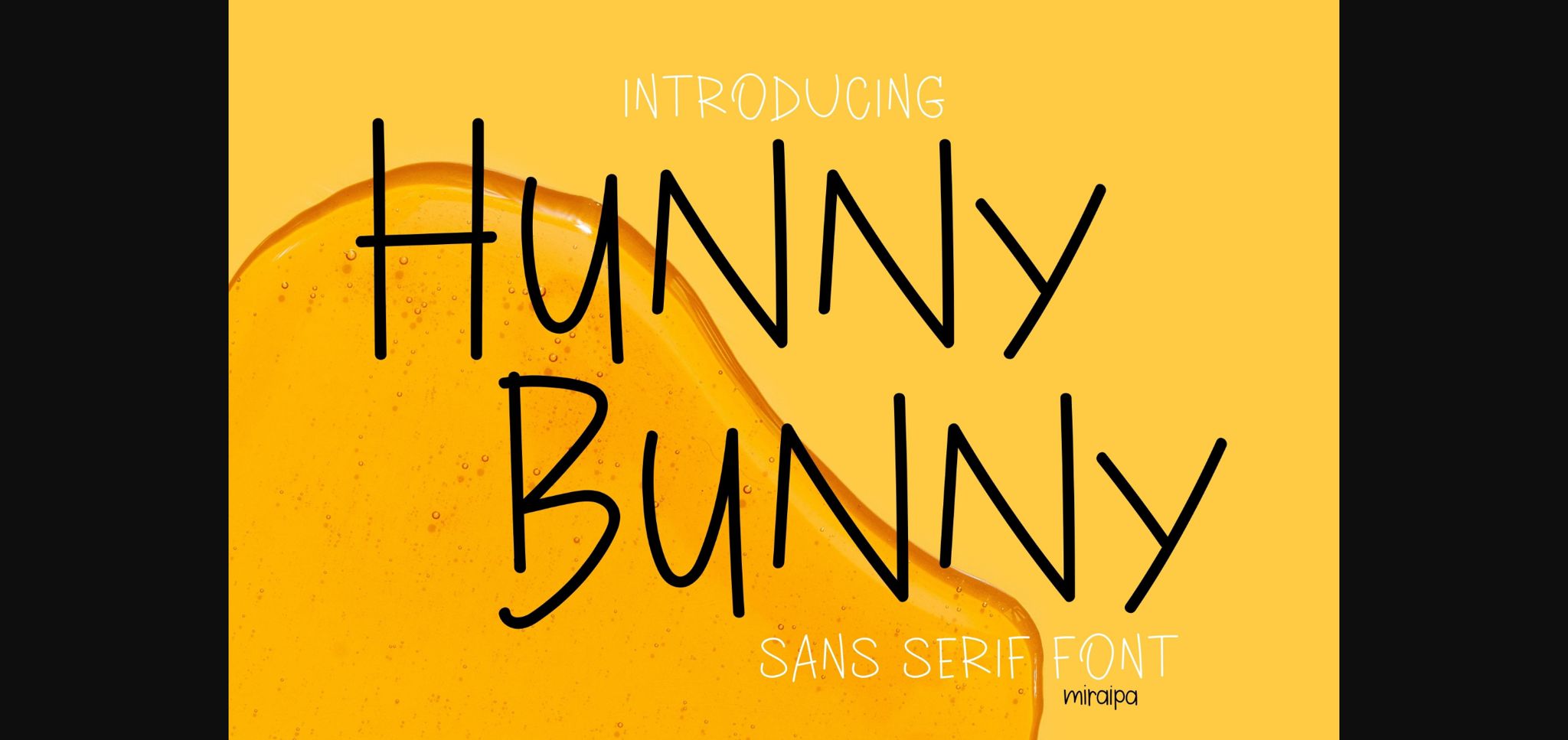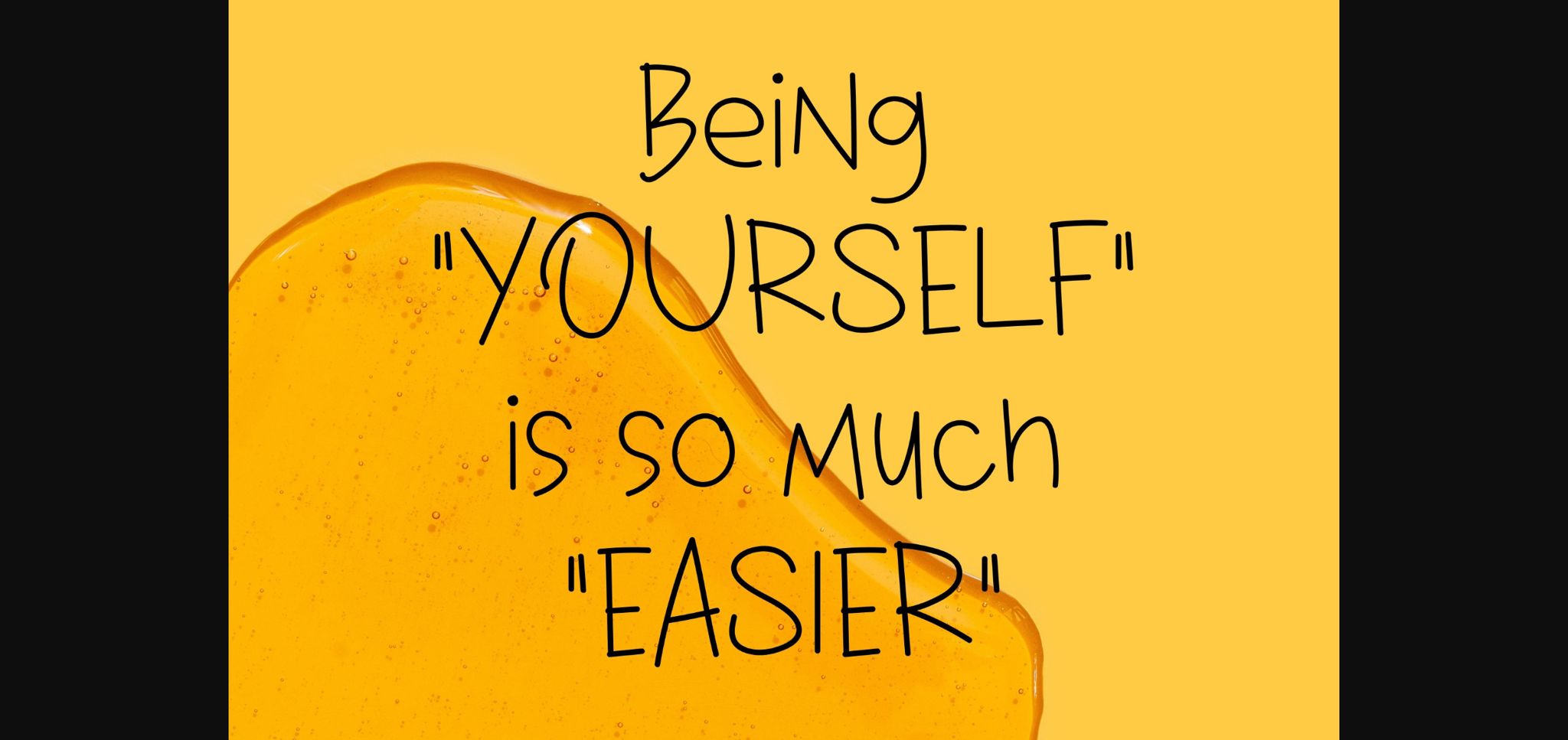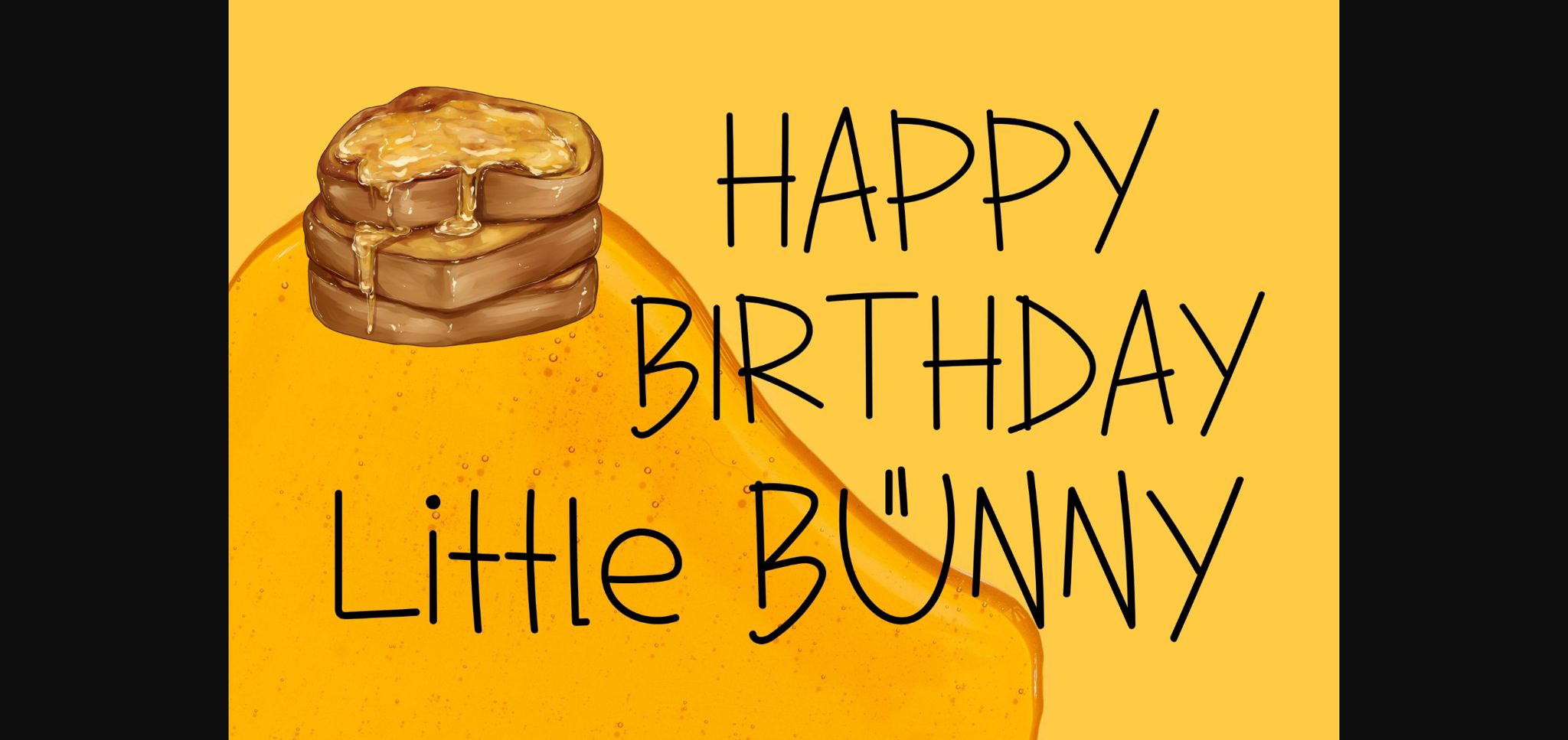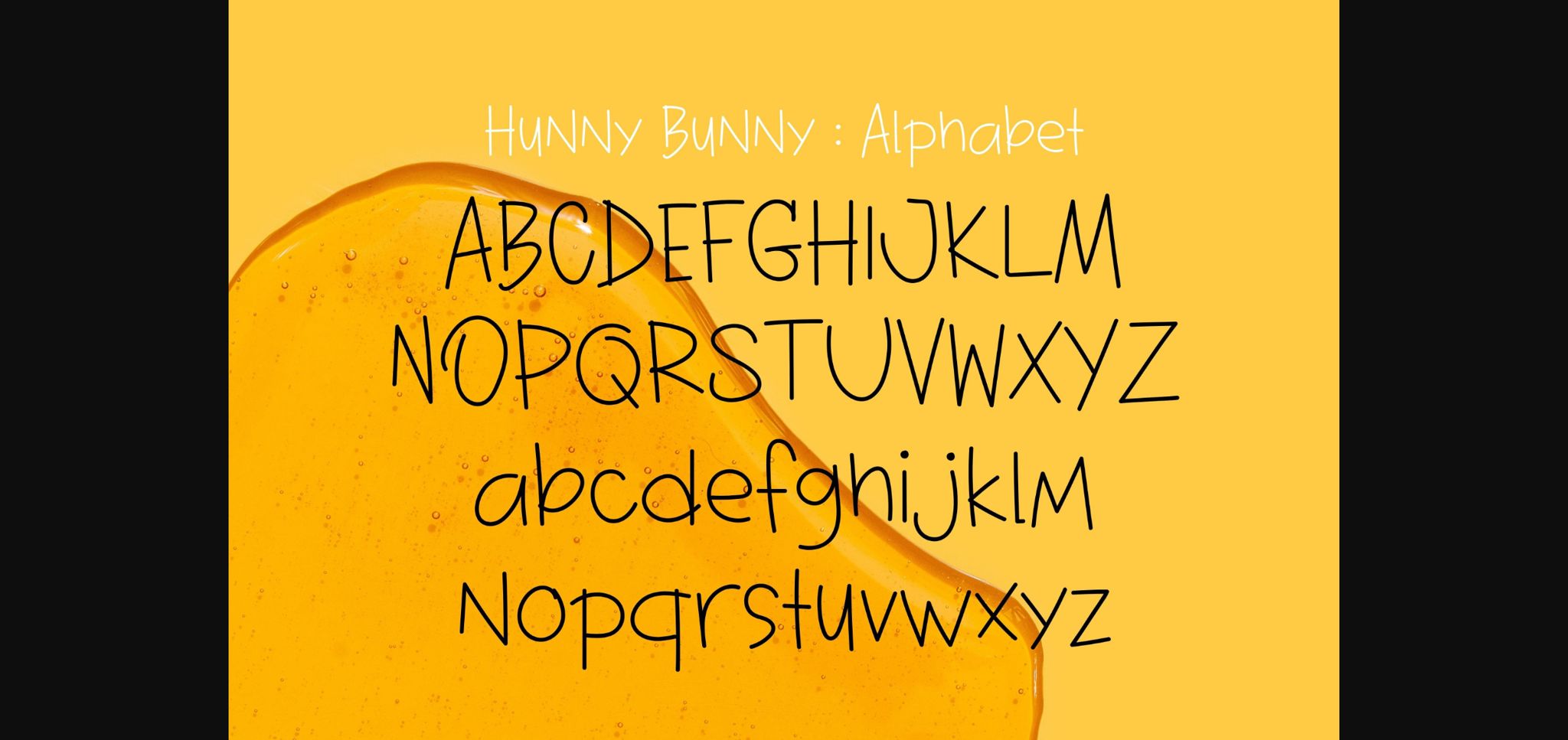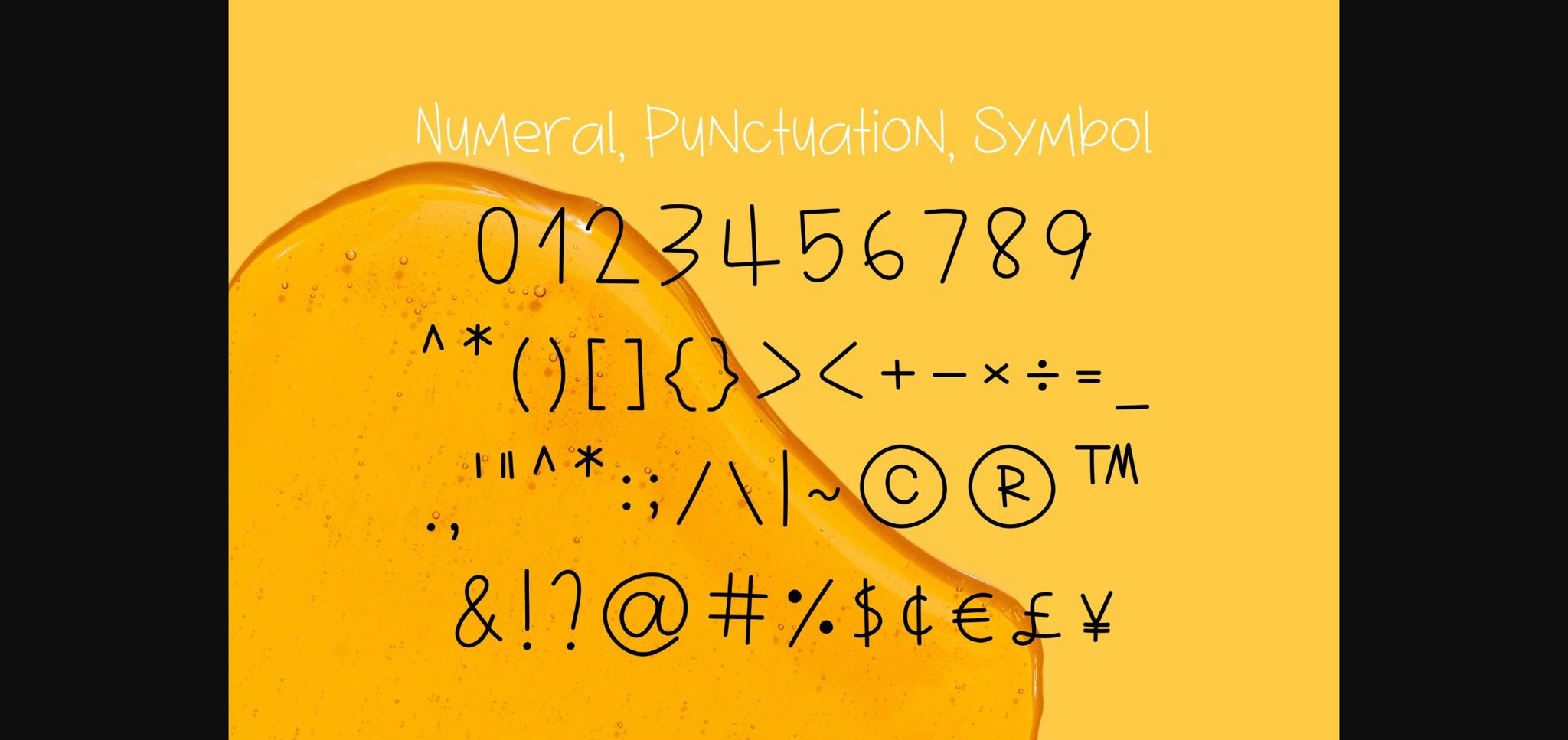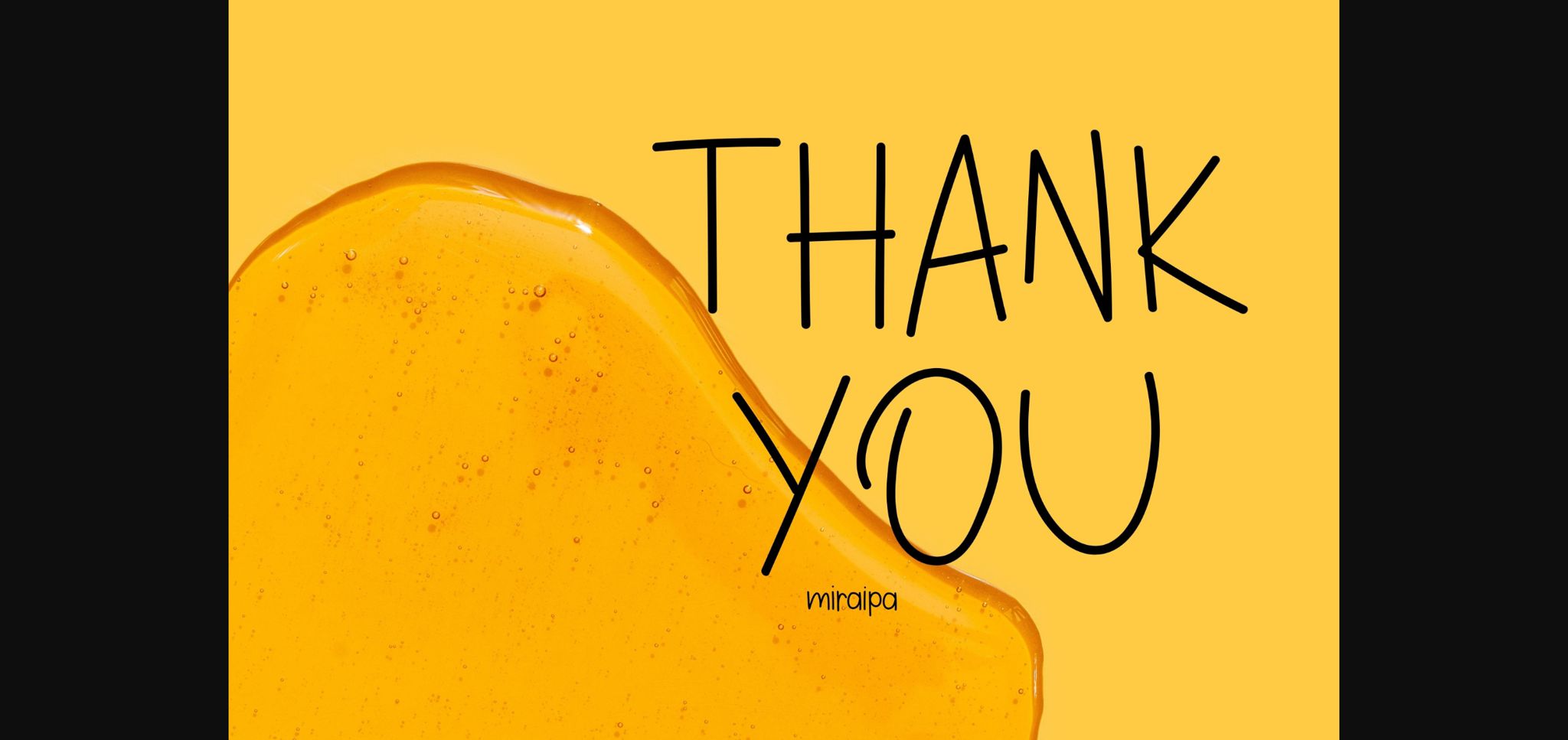
About Hunny Bunny Font
Hunny Bunny is designed in a friendly and lovely style. It would be awesome for your diary planner and journal. It is also perfect for back-to-school projects, weddings, party decorations, invitations, festivals, posters, blogs, clothing, child-related designs, greeting cards, social media posts, or anything that needs a friendly touch. Add it now to your fonts library, and it will bring any of your DIY projects to life.